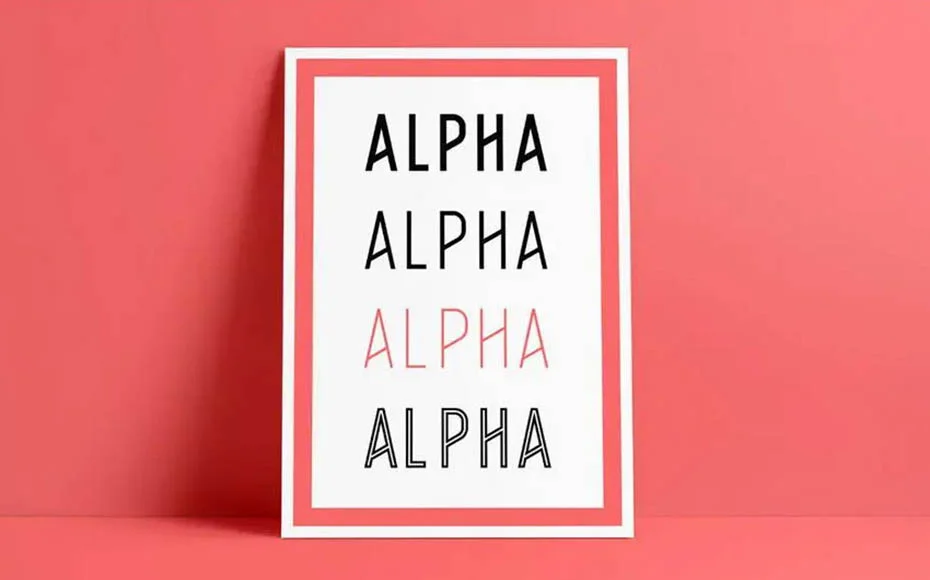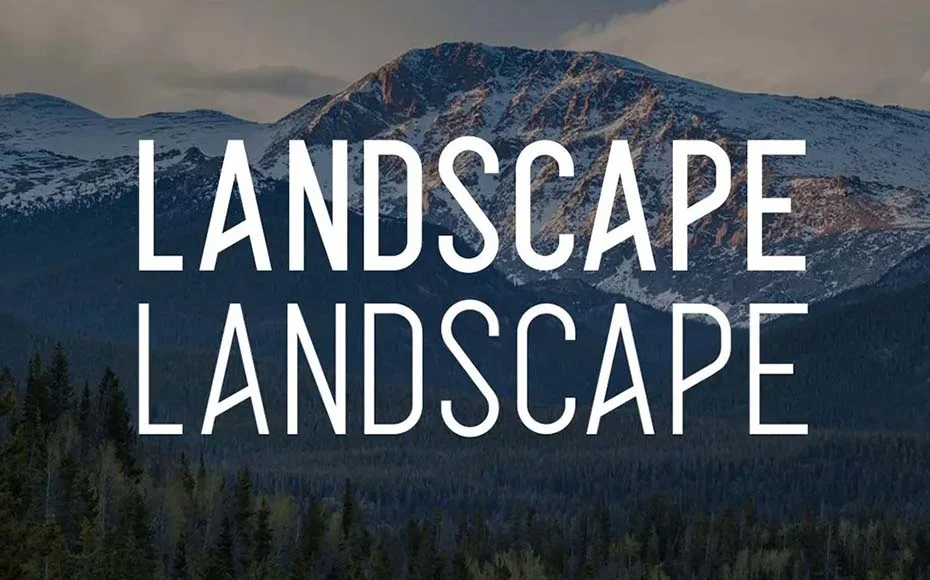
Alpha Font Family is a sans serif font that has awesome bold texture. Its letters are featuring preeminent texture which reflects tribute to the past typography. And for future typographic conventions as well.
Each and every letter of this font family has been created with clean strokes which polish off the finish of a letter stem. So, it becomes truly a masterpiece for unique designs same as Agane Font and Jaapokki Font.
Callum Finn is the primary designer of this typeface because he releases it for the first time in 2018. After that, this elegant font got tremendous success because it fulfills the requirement of all designers.
The designer has put its name in alpha that means you can utilize it in all kinds of matters. Like you can use it in basic designs and modern designs as well.
All the letters have long heights along with standard width. And the whole texture is created with medium strokes. So, it can easily be workable for small to large designs.
Due to its awesome texture, you can create covers, magazines, posters, game titles, taglines, logos, cards printing, movie posters, and several other things.
This super cool font has supported many languages that help to create designs in many languages. Due to this feature, its demand is really on the market.